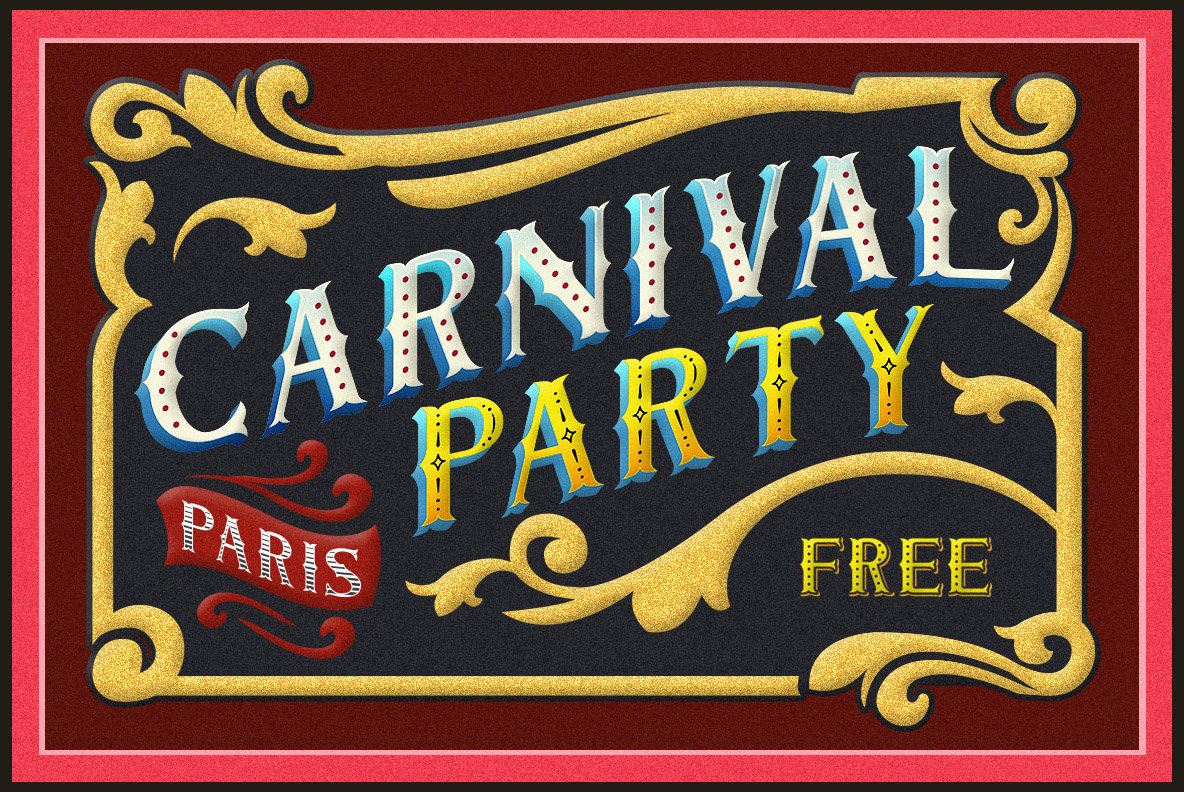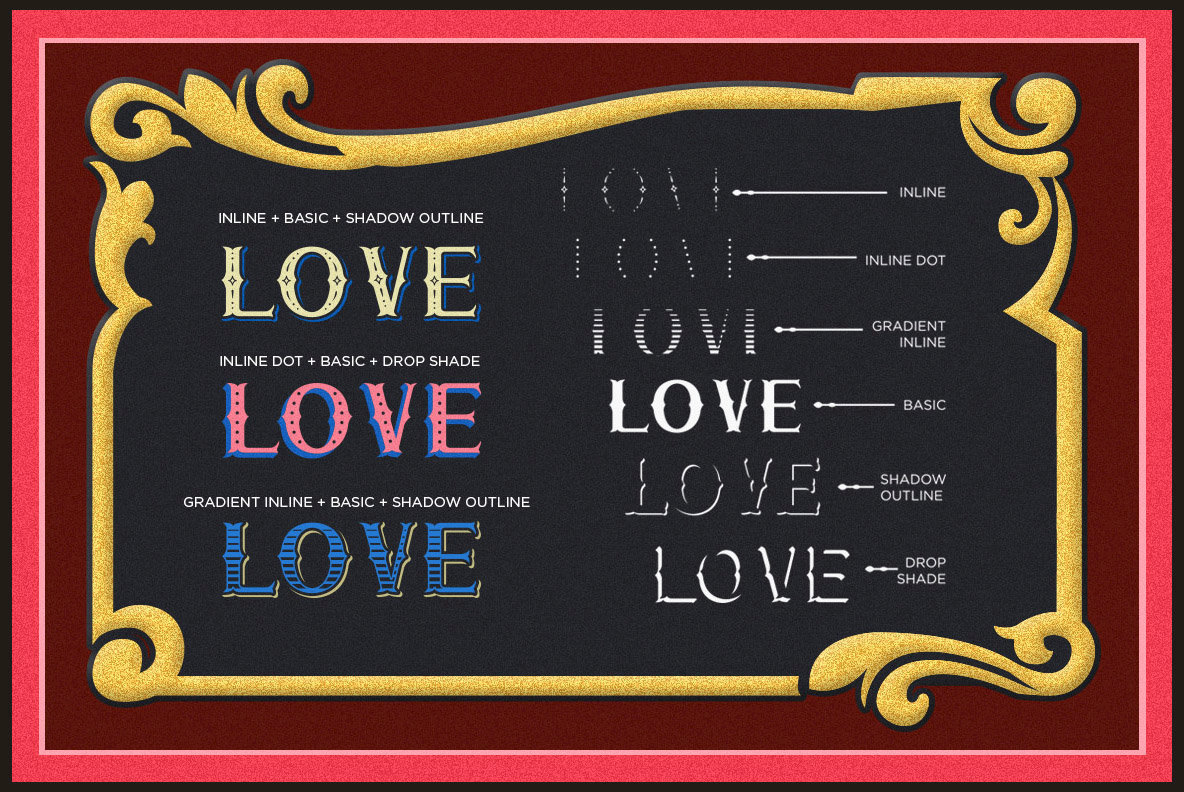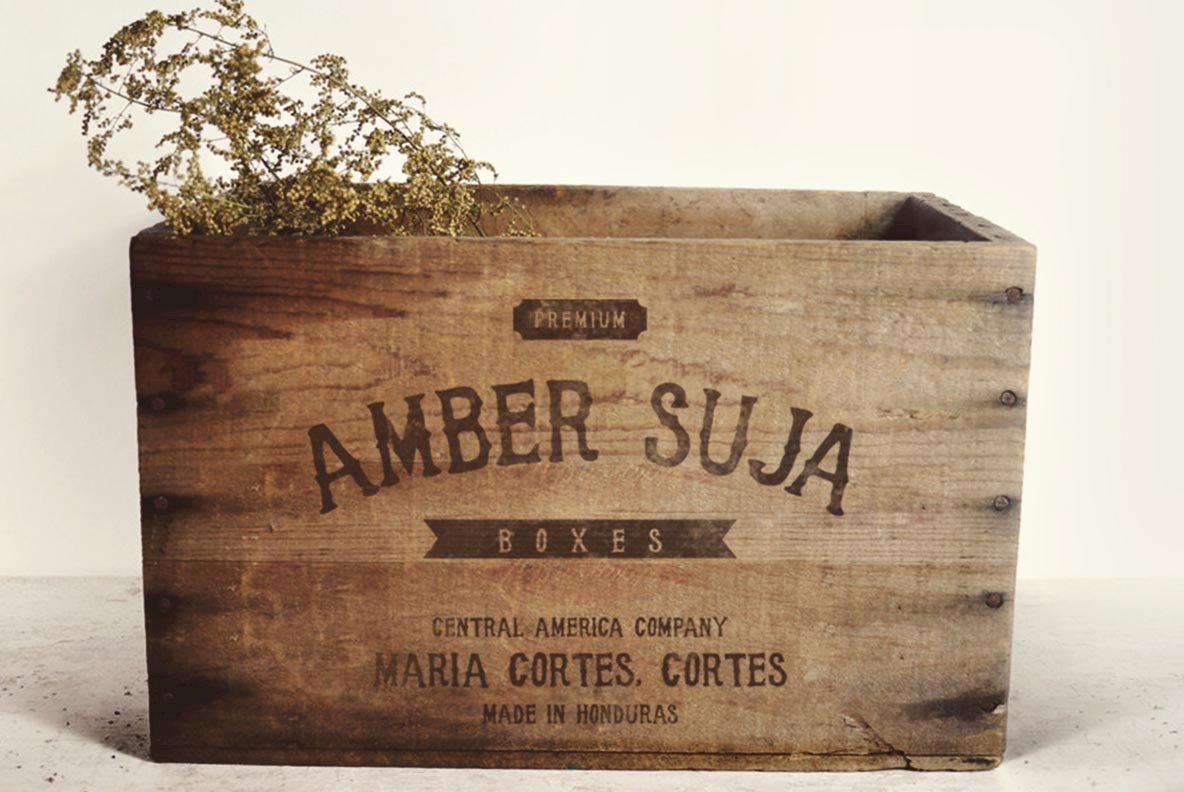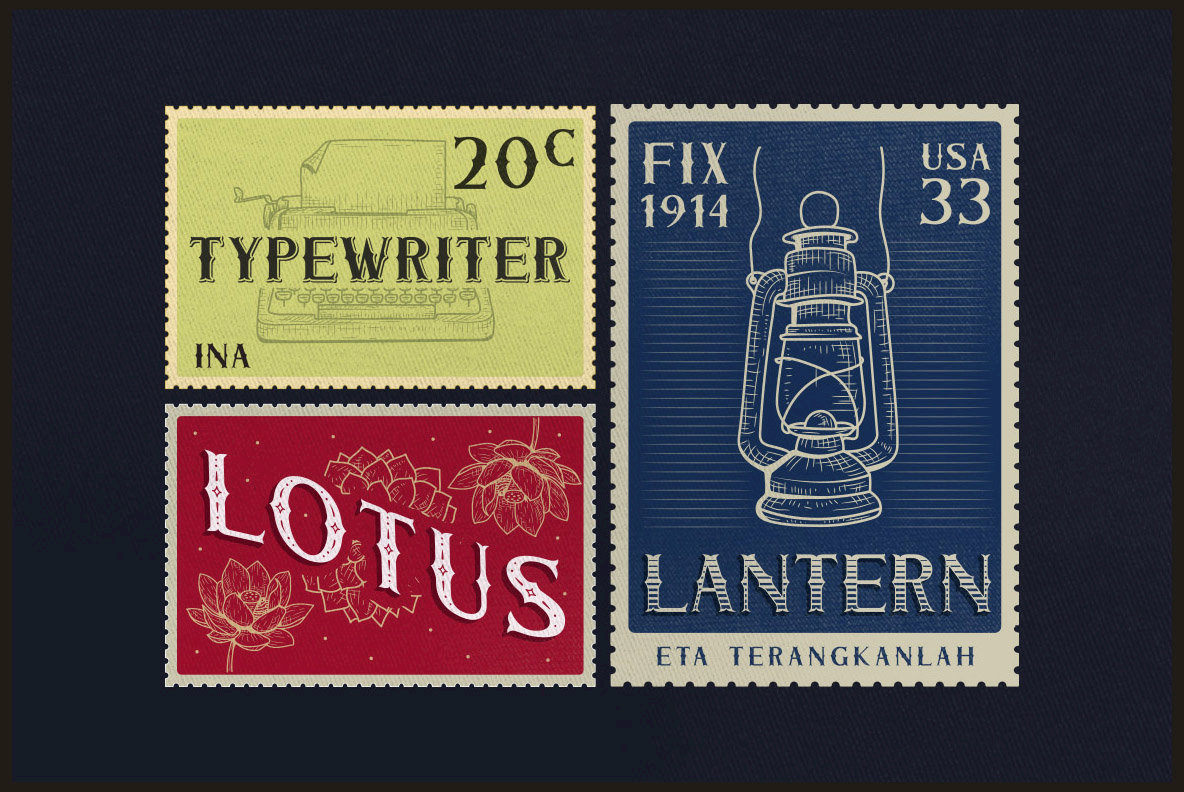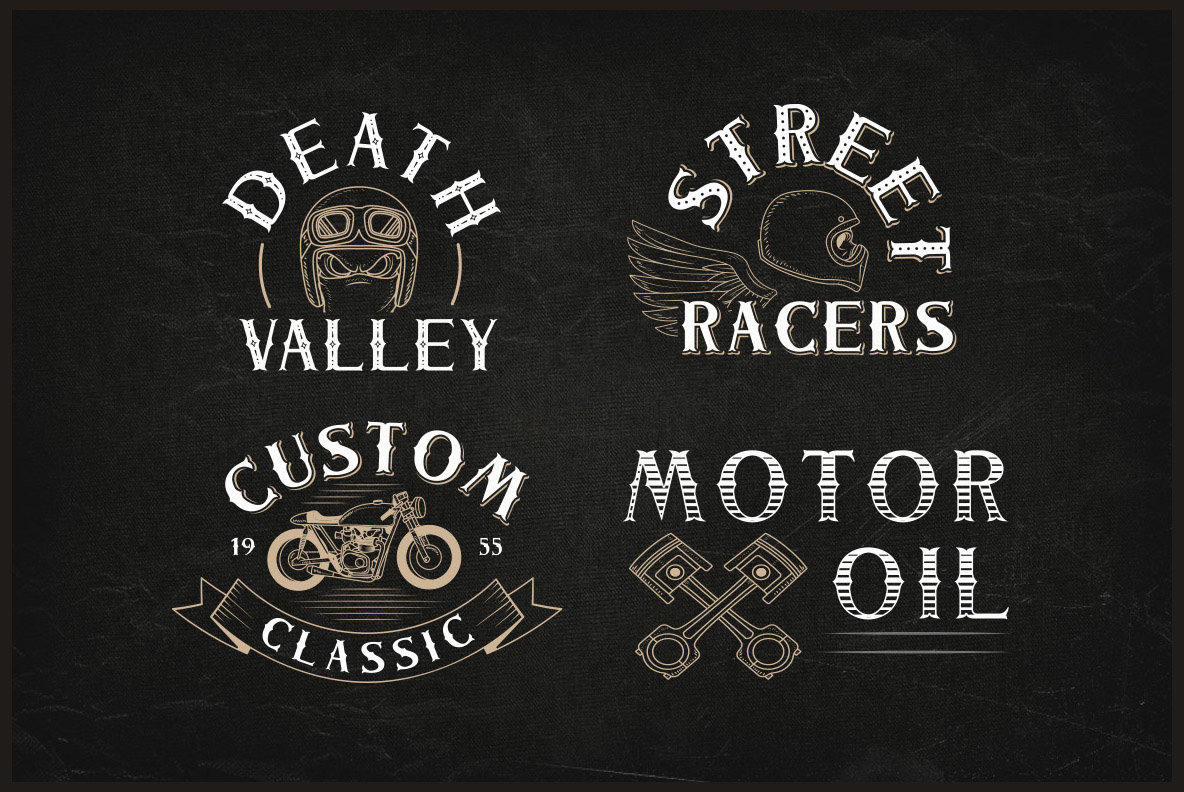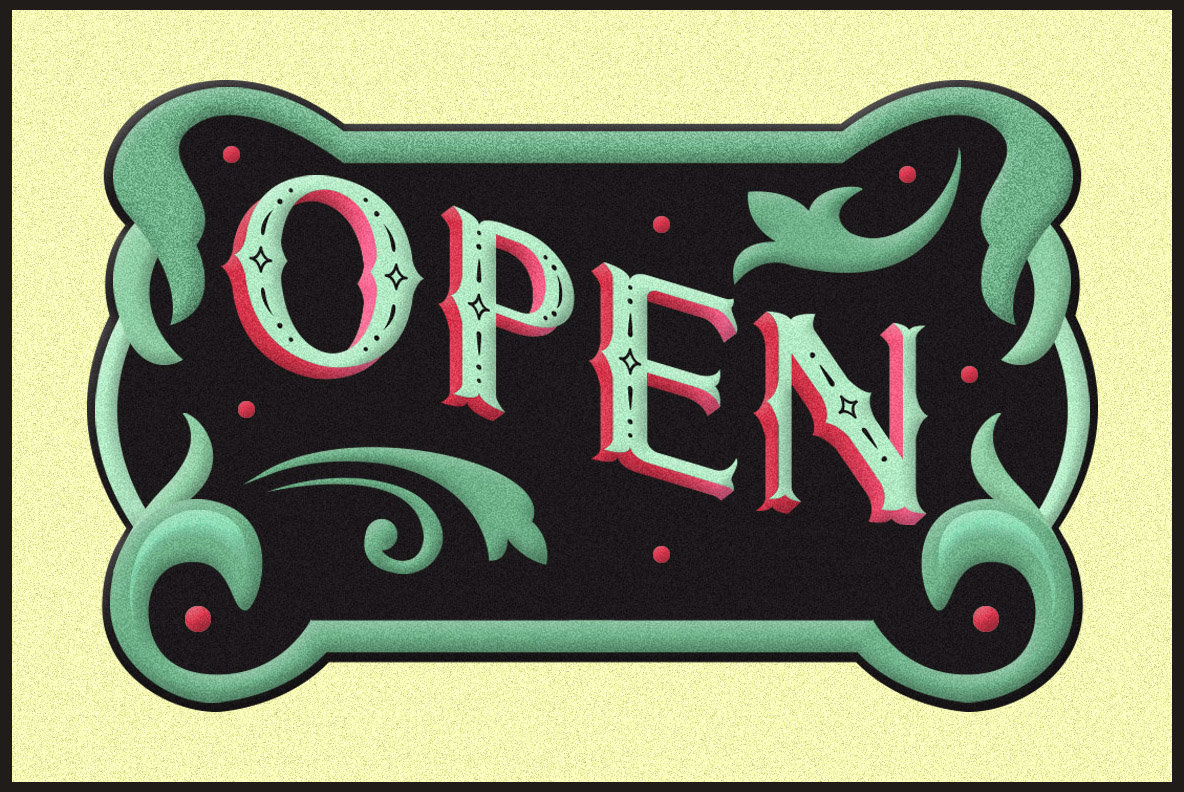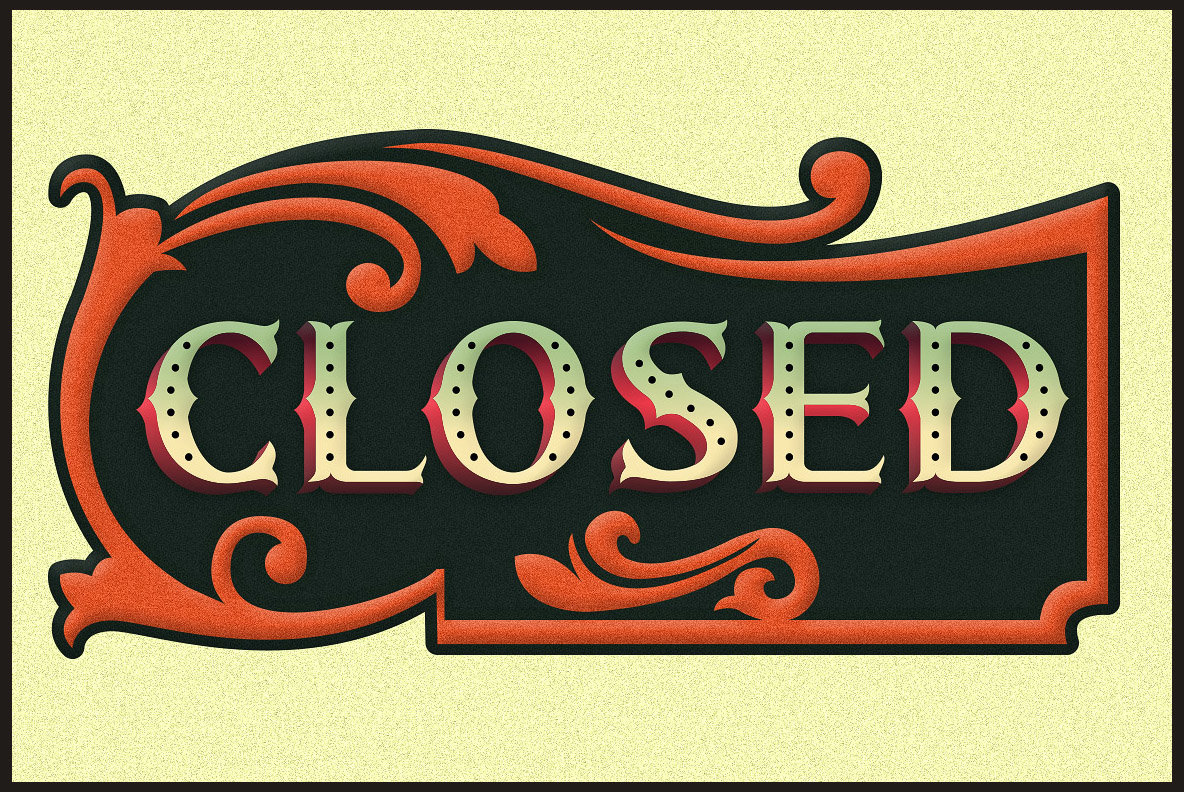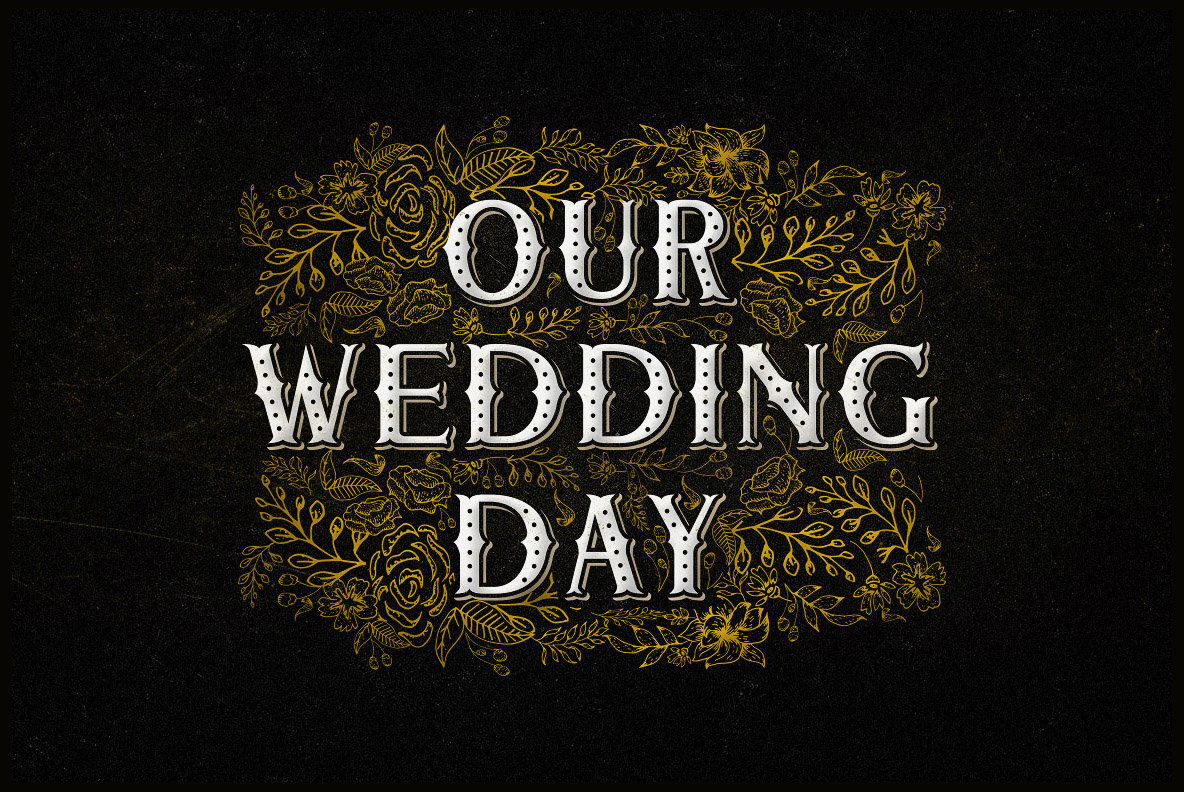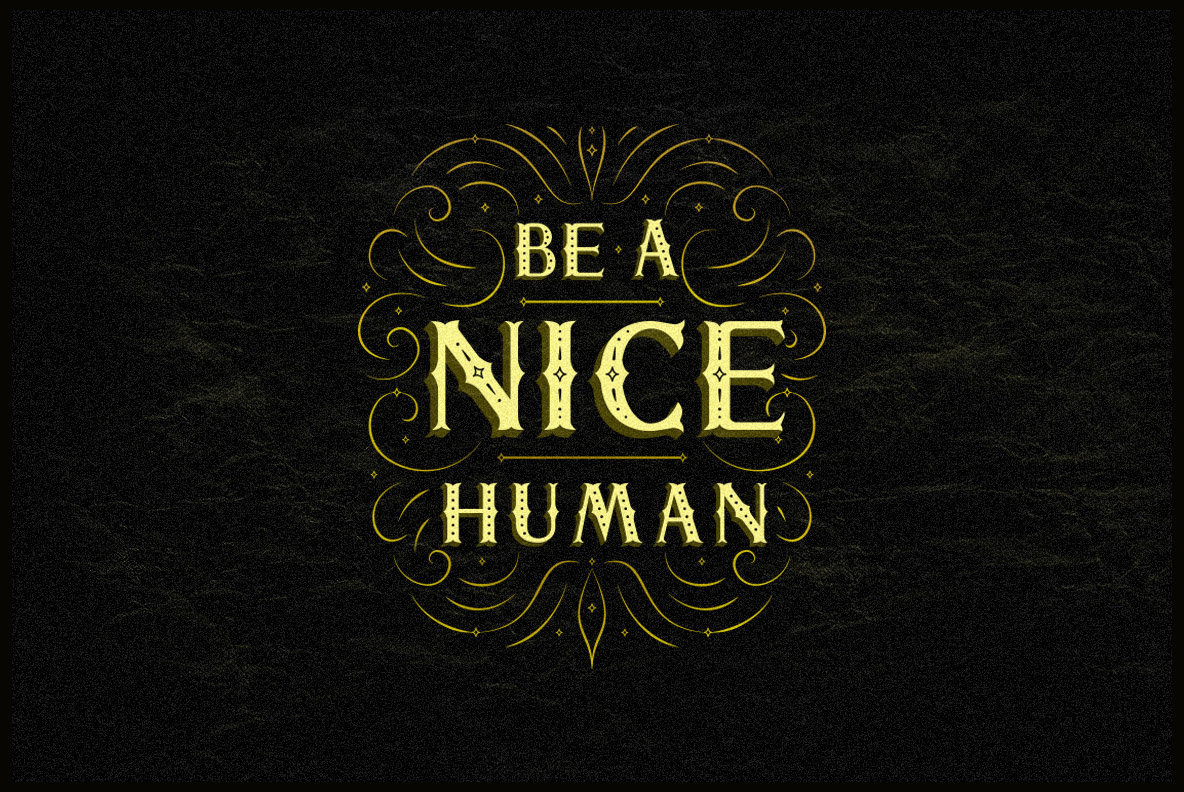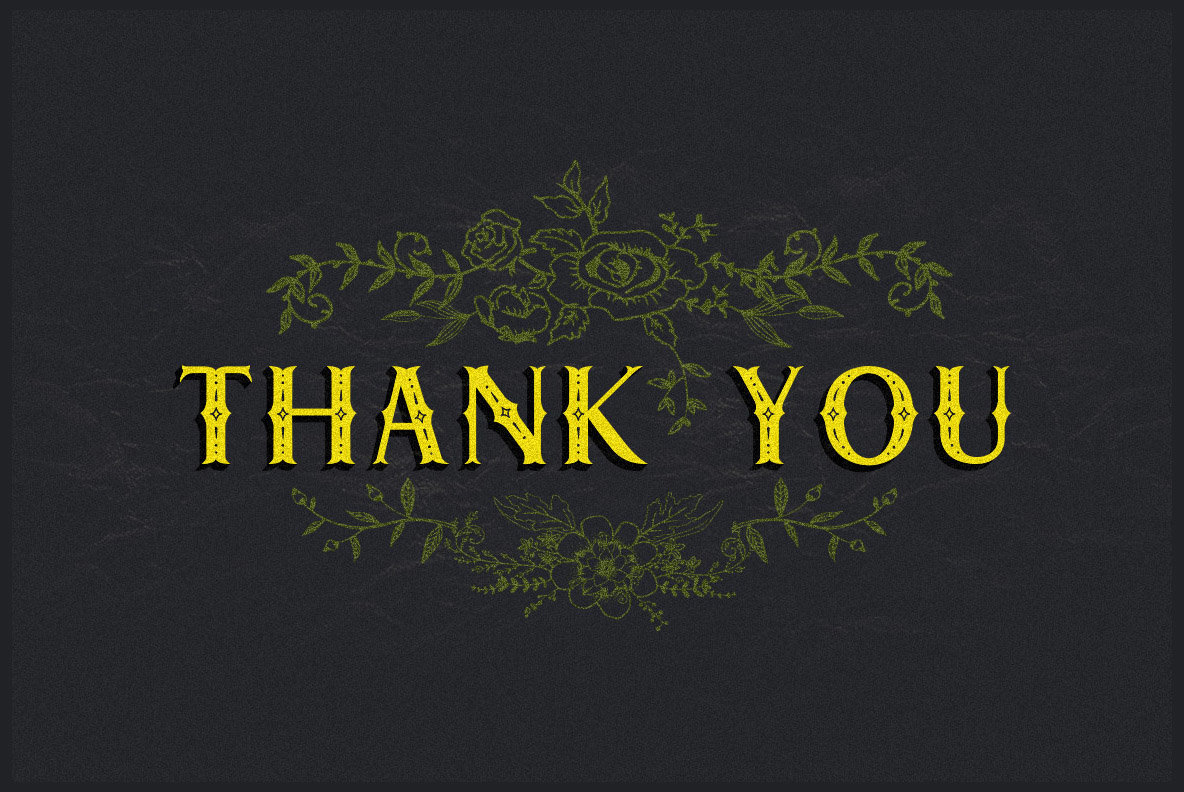
Chester Font
The Chester font family draws inspiration from vintage postcard stamps and rustic sign paintings, offering a distinct decorative appeal. This layered typeface system provides endless possibilities for creative expression through its five versatile font styles, which can be combined for unique visual effects. Perfect for a wide variety of projects, Chester is ideal for logos, product packaging, classic shop signs, badges, quotes, movie titles, t-shirts, posters, greeting cards, and book covers. Its adaptability ensures it complements both contemporary and traditional aesthetics.Chester: Layered Font Family with Decorative Flair